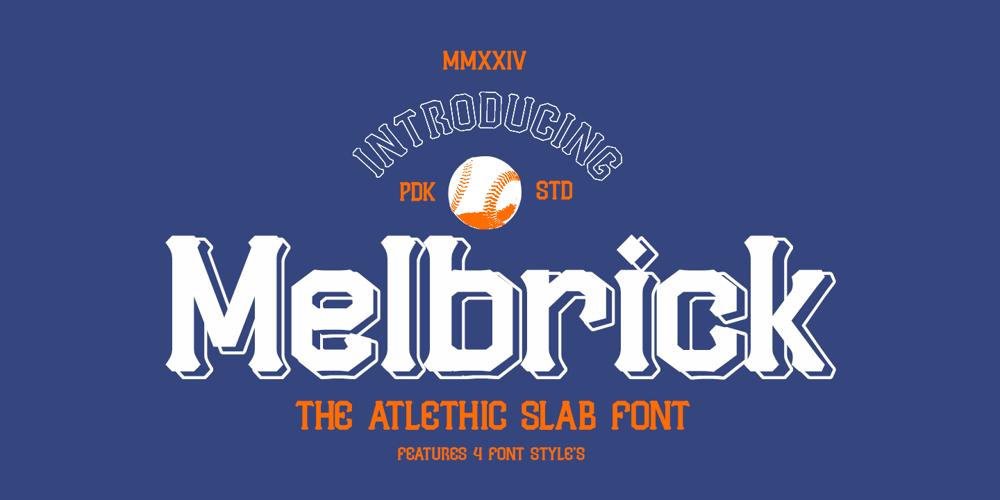
Melbrick
Melbrick font
Melbrick Font Family was designed by Sagara Nararya and published by Pandeka Studio. Melbrick contains 4 styles and family package options. Introducing Melbrick, The athletic slab font featuring 4 unique styles. Inspired by old western letters, Melbrick is here to bring boldness and confidence to your designs!Melbrick is an athletic slab font that combines the rugged charm of the old west with a modern athletic edge. With 4 unique styles: Regular, Italic, Outline, Italic Outline it’s perfect for sports logos, branding, posters, and apparel design.This font includes both upper and lowercase vintage characters, each with distinct renders that add authenticity and a naturally worn look. Melbrick stands out with its strong and dynamic presence, making it an ideal choice for various creative projects.What do you get? Melbrick Main FIles Offers 4 styles: Regular, Italic, Outline, and Italic Outline. Unique letterforms Multilingual support Works on PC & Mac Simple Installations Accessible in Adobe Illustrator, Adobe Photoshop, Microsoft Word, and even Canva PUA Encoded Characters Fully accessible without additional design software Drop any message if you have any questions.Thanks!Pandeka Studio